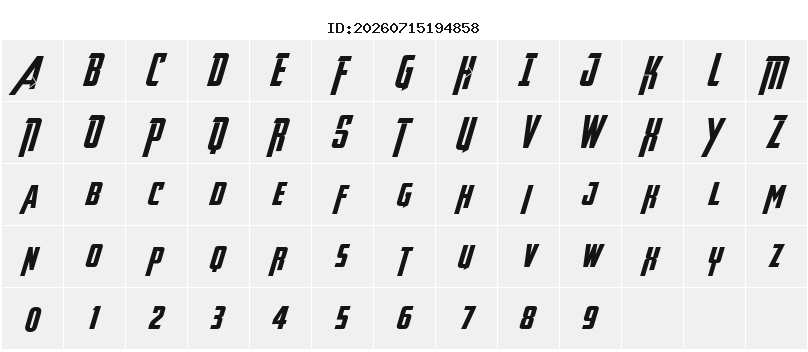
Avengeance Heroic Avenger Preview
• Font Name: Avengeance Heroic Avenger
• Full Font Name: Avengeance Heroic Avenger Bold Italic
• Manufacturer: The Fontry
About Avengeance Heroic Avenger.ttf
Avengeance Heroic Avenger.ttf is a modern, elegant sans-serif font designed for ultimate readability and visual harmony. Perfect for branding, headlines, web design, and print materials.